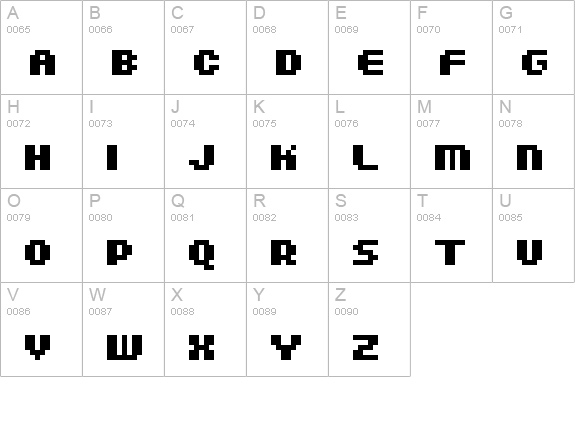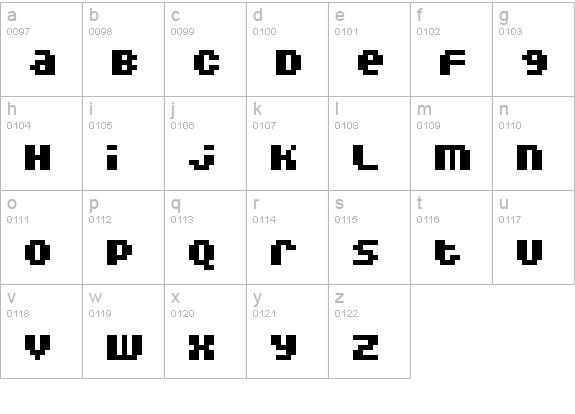
DoubleOhOne Bold Font Details
DoubleOhOne Bold is a strong, high-contrast variant in the DoubleOhOne typeface family \xE2\x80\x94 well suited to headlines, attention-grabbing titles, and strong calls-to-action.
DoubleOhOne Bold font is a striking and modern typeface that exudes confidence and sophistication. With its bold and clean lines, this font is perfect for making a statement in your design projects. Whether you are creating posters, logos, or headlines, DoubleOhOne Bold font will demand attention and leave a lasting impression. The best part? This stylish font is completely free to download at FontsMarket.com. Don't miss out on the opportunity to enhance your designs with the bold and impactful DoubleOhOne Bold font. Download it today and take your projects to the next level!